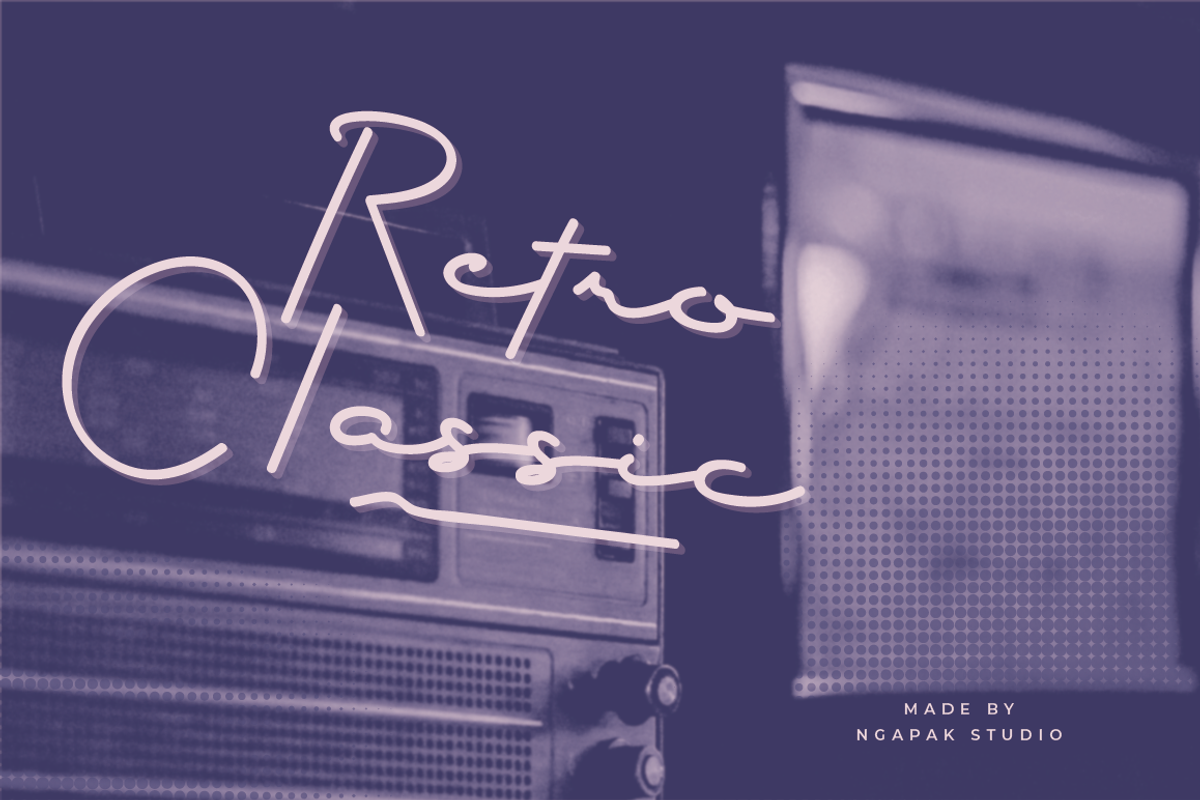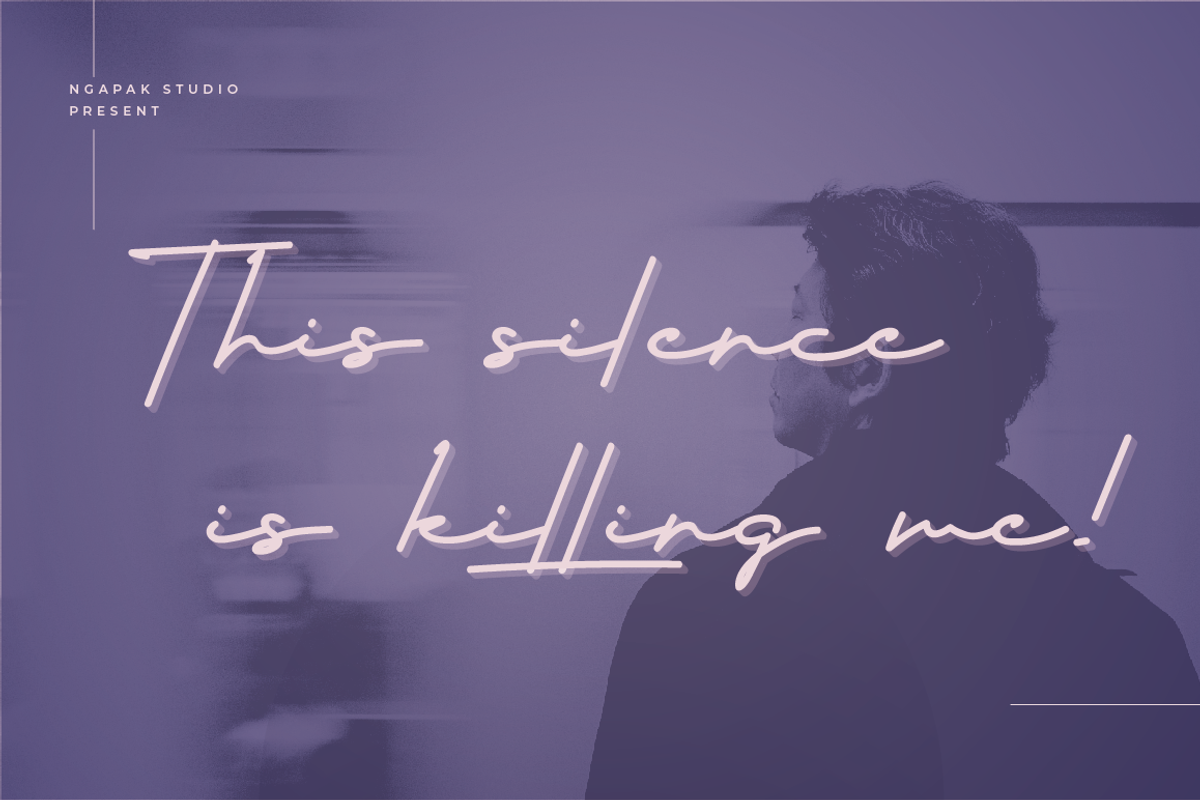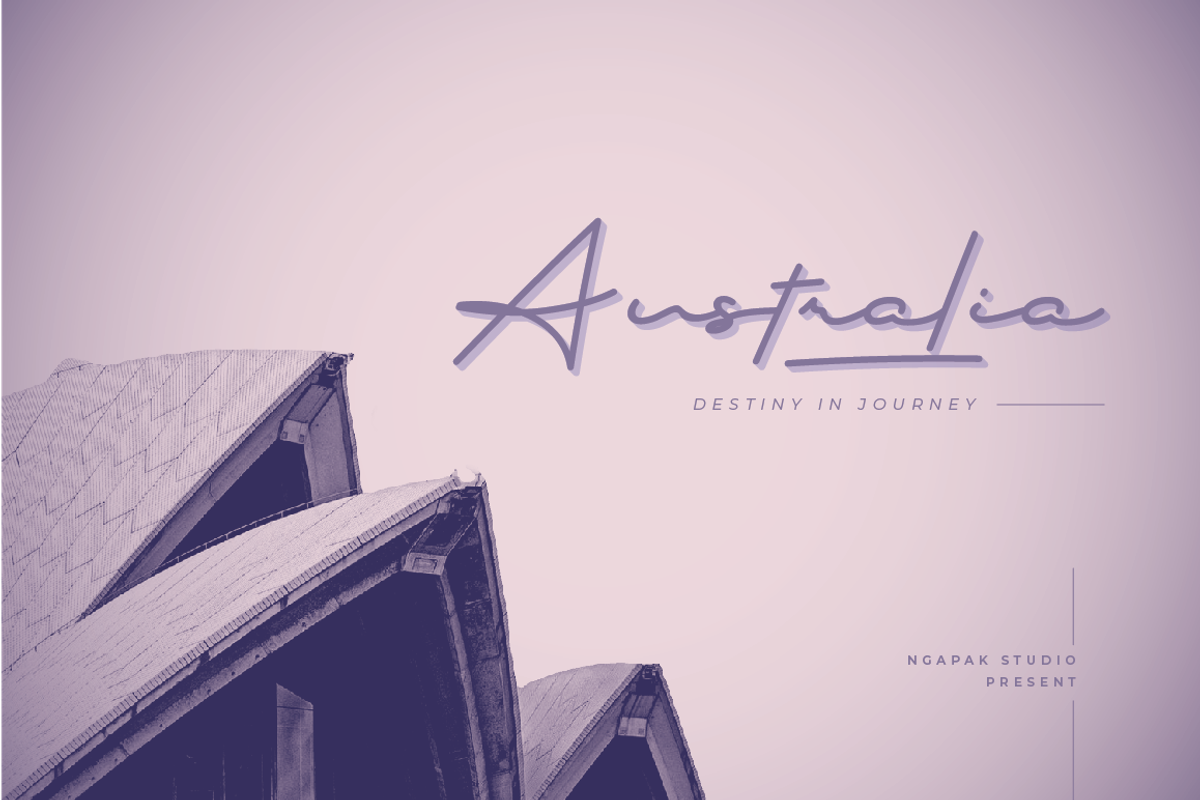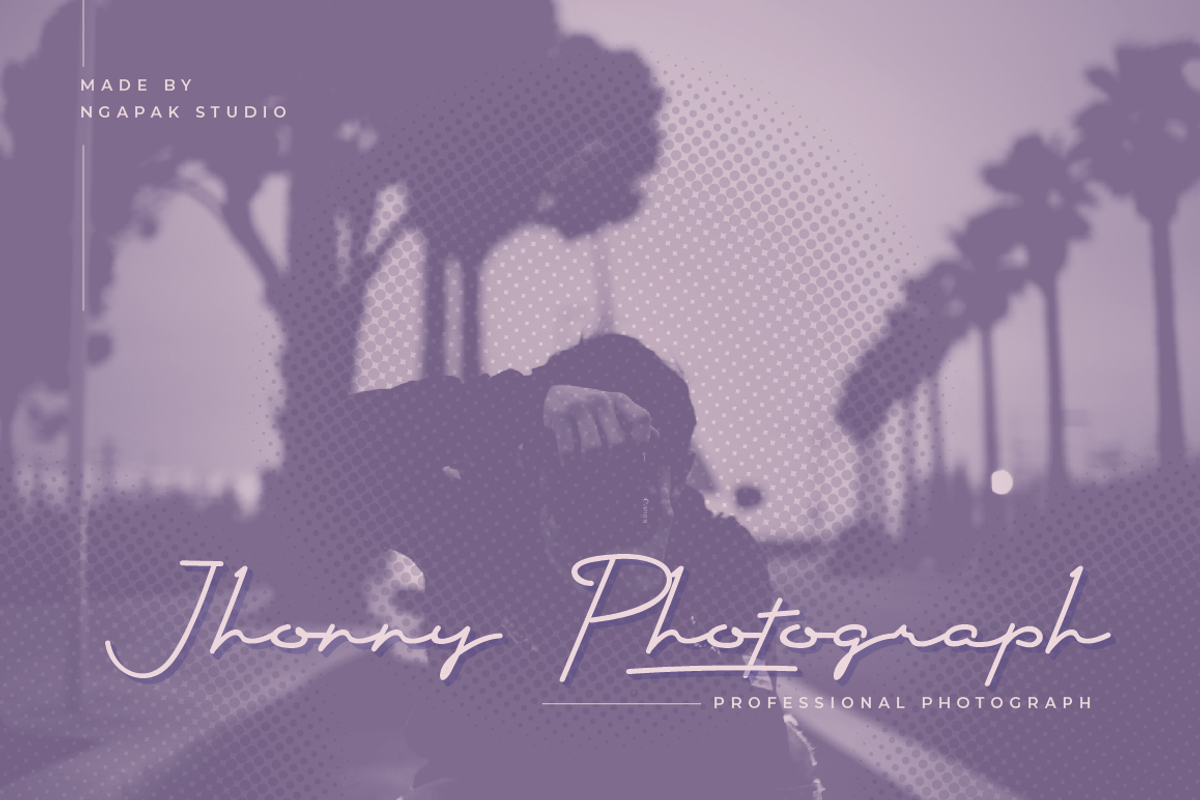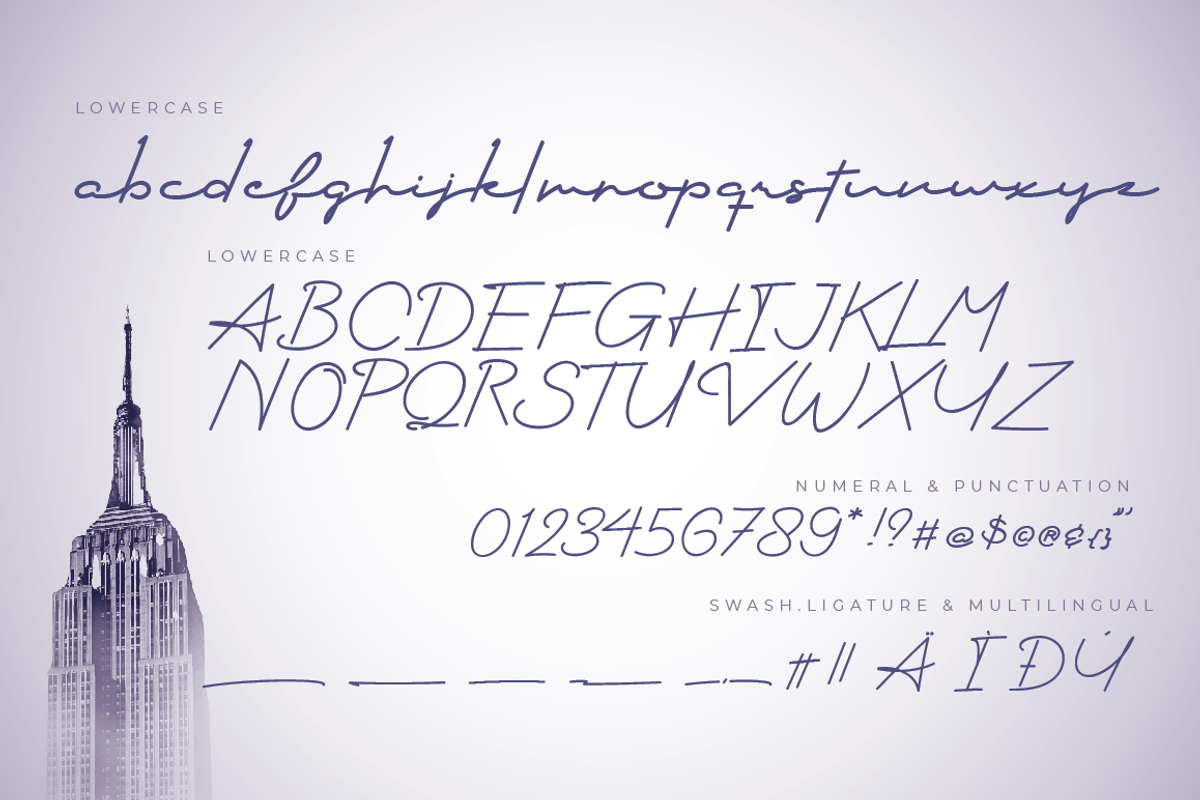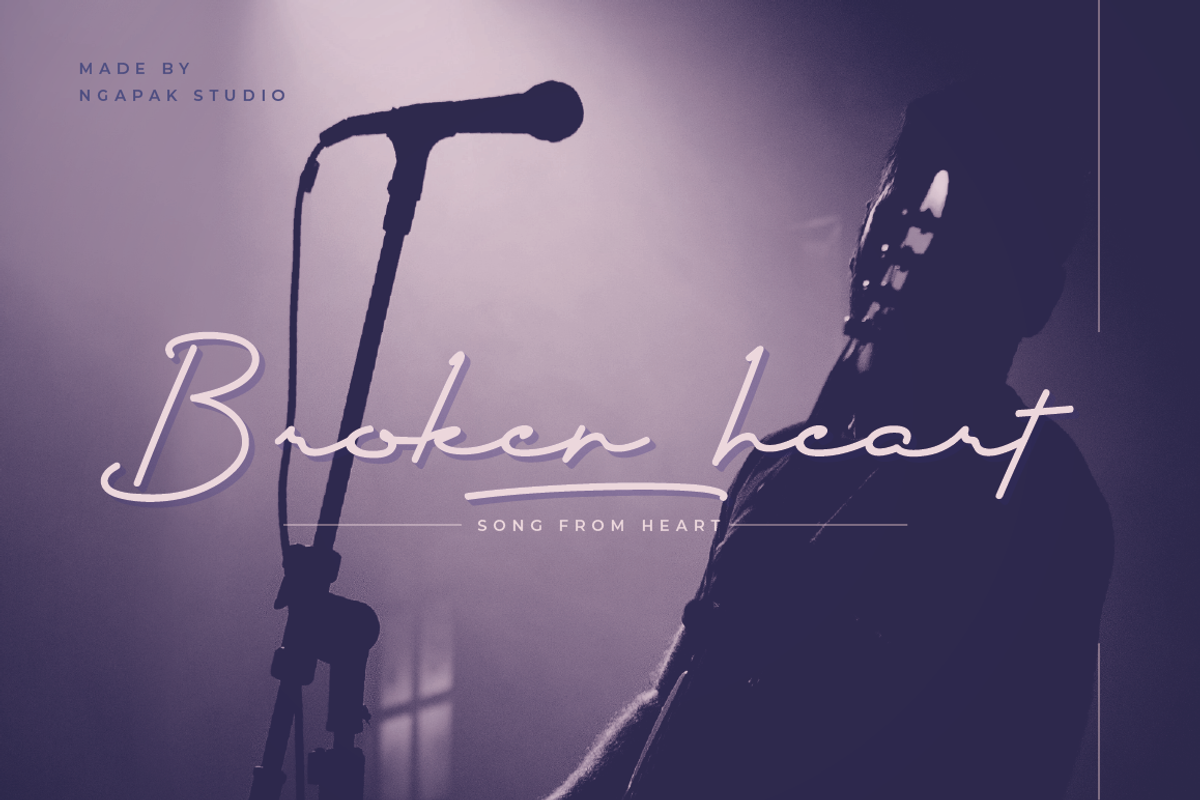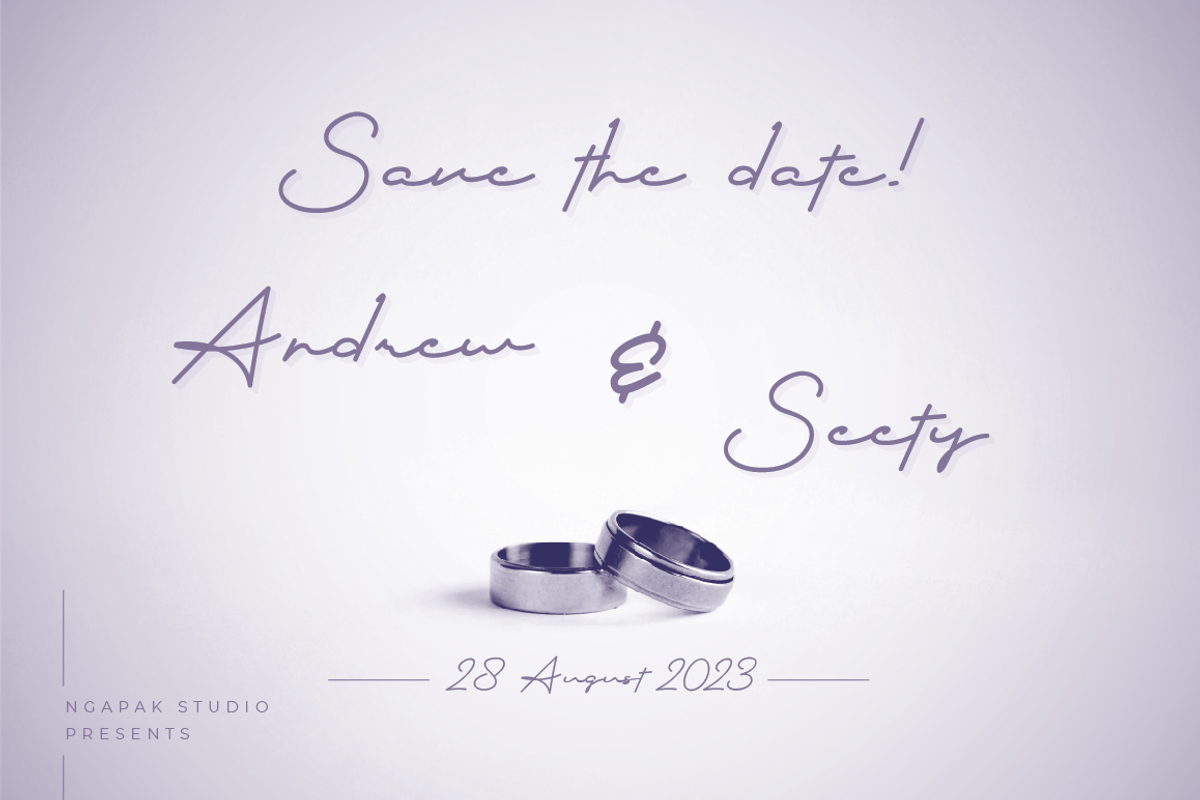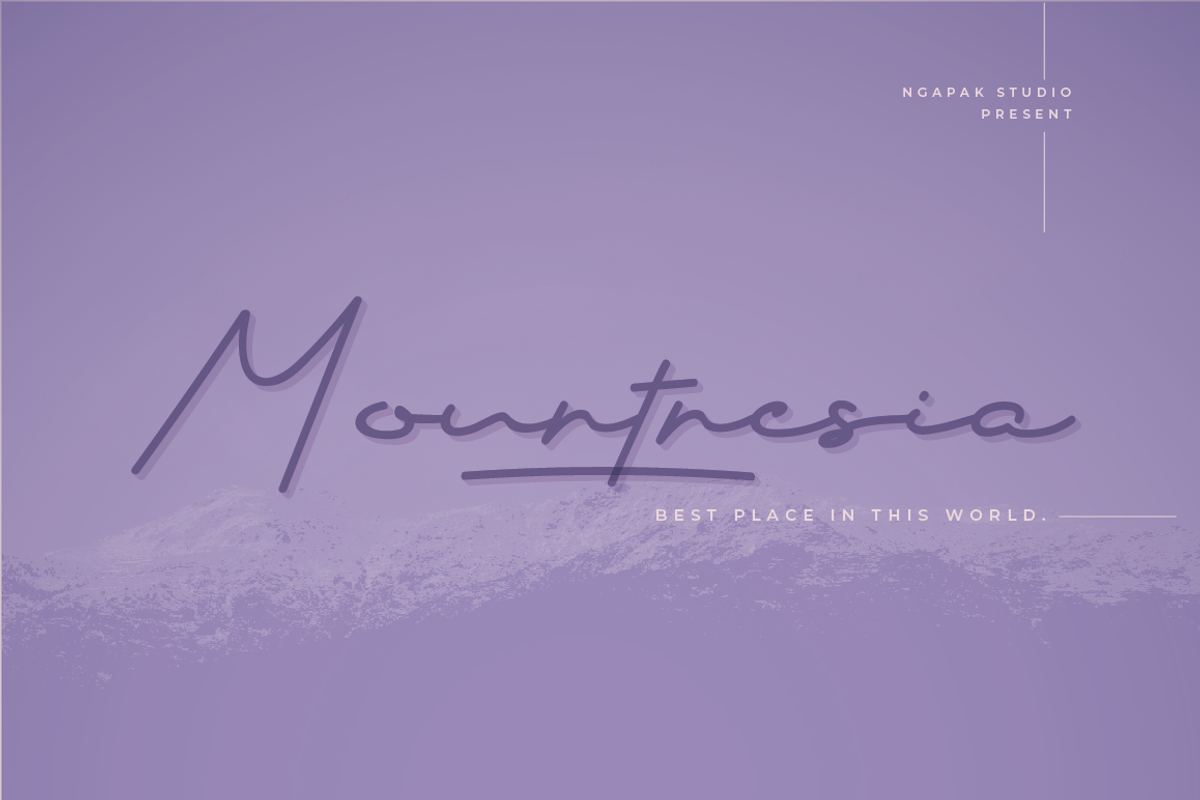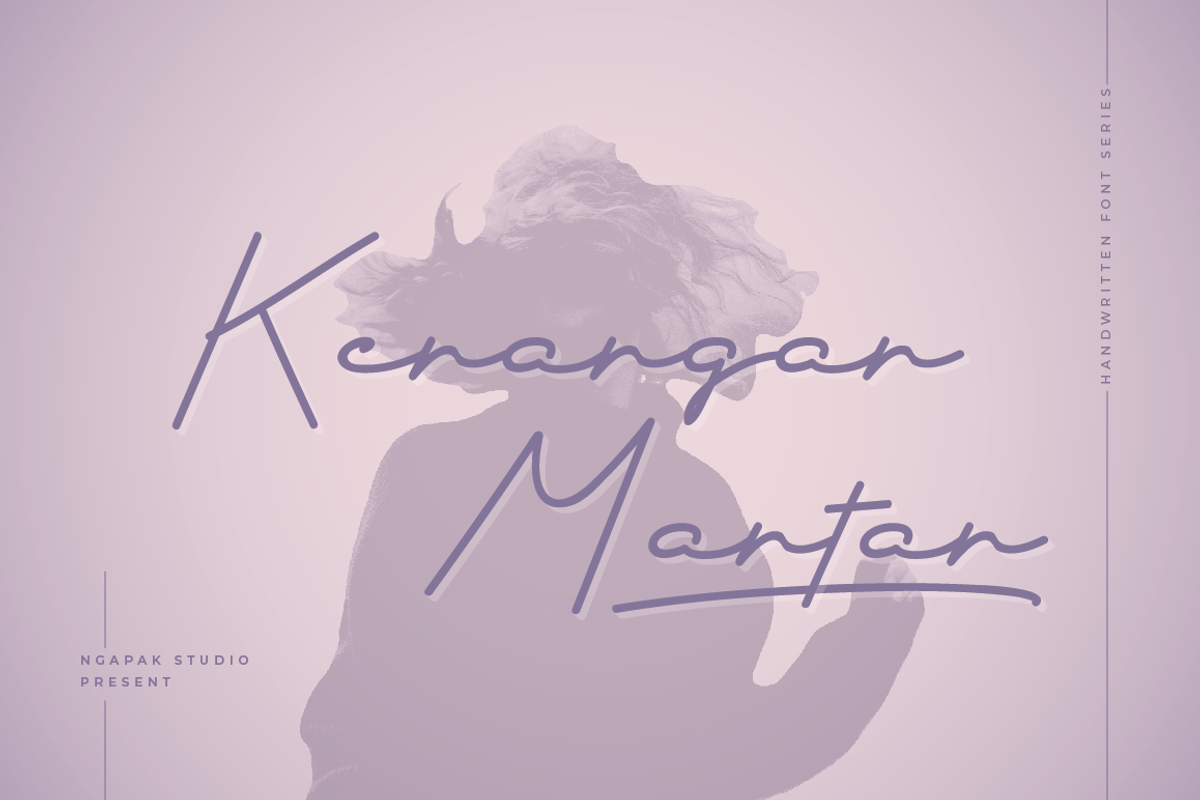
Kenangan Mantan Script Style
Kenangan Mantan Script Style - a new modern & fresh script with a handwritten and script style make this font looks elegant, natural, stylish and perfect for any awesome projects that need handwriting taste.
Kenangan Mantan - would perfect for photography, watermark, social media posts, advertisements, logos & branding, invitation, product designs, label, stationery, wedding designs, product packaging, special events or anything that need handwriting taste.
- Ligature & Swash
- Fonts include multilingual support for; Afrikaans, Albanian, Asu, Basque, Bemba, Bena, Breton, Chiga, Cornish, Danish, Dutch, English, Estonian, Faroese, Filipino, Finnish, French, Friulian, Galician, German, Gusii, Indonesian, Irish, Italian, Kabuverdianu, Kalenjin, Kinyarwanda, Luo, Luxembourgish, Luyia, Machame, Makhuwa-Meetto, Makonde, Malagasy, Manx, Morisyen, North Ndebele, Norwegian Bokmål, Norwegian Nynorsk, Nyankole, Oromo, Portuguese, Quechua, Romansh, Rombo, Rundi, Rwa, Samburu, Sango, Sangu, Scottish Gaelic, Sena, Shambala, Shona, Soga, Somali, Spanish, Swahili, Swedish, Swiss German, Taita, Teso, Uzbek (Latin), Volapük, Vunjo, Zulu.